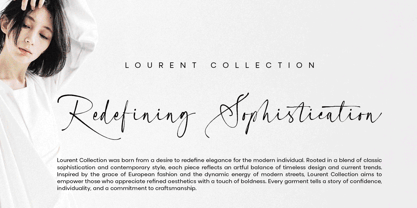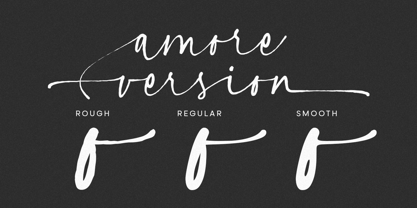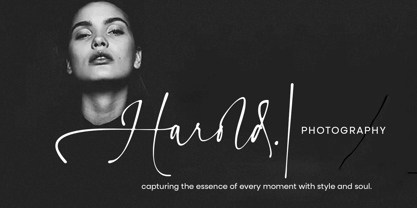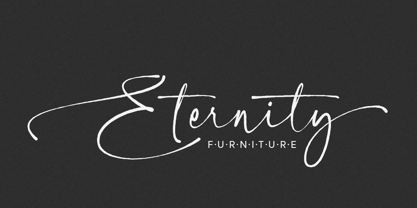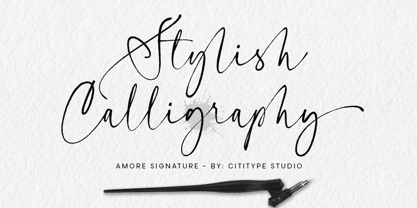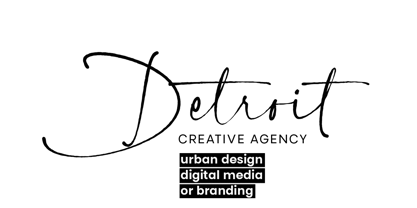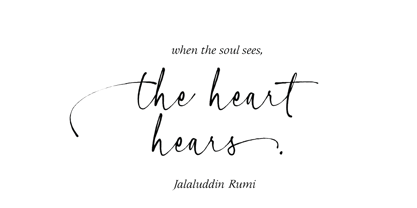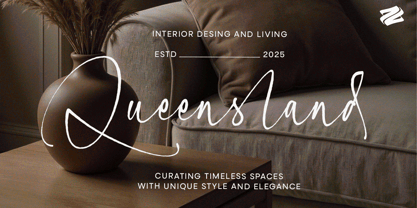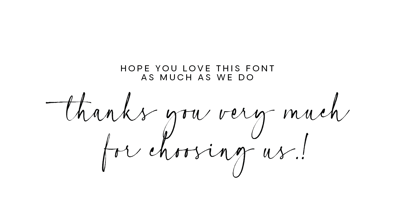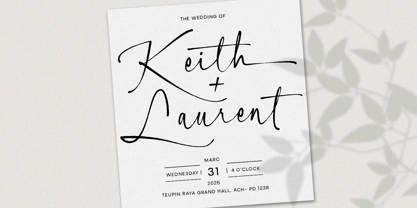
Amore Signature
by Cititype
The Amore Signature Font Family was designed by Muhammad Ridha Agusni, Siti Saribanon Nurjannah and published by Cititype. Amore Signature contains 3 styles and family package options. More about this family
Amore Signature is a stylish signature font that exudes elegance and sophistication in every stroke. Designed with smooth, flowing lines, this font brings a luxurious, personal, and charismatic touch—just like a handwritten ink signature.
This font is available in three versions, allowing you to adapt it to your design needs:
• Regular – A clean and elegant look for a professional touch.
• Rough – A textured version for a more natural and authentic feel.
• Smooth – A softer, refined style for a modern appearance.
Created for various design needs, Amore Signature is perfect for branding, logos, invitations, product packaging, and other creative projects. With its naturally flowing letters and unique ligatures, this font adds an exclusive and artistic touch to every work.
Amore Signature also includes features such as alternates, ligatures, and multilingual support, making it an excellent choice for designers who seek an authentic and professional handwritten style.
Create a classy and memorable impression with Amore Signature – a font that brings the beauty of handwriting to life.